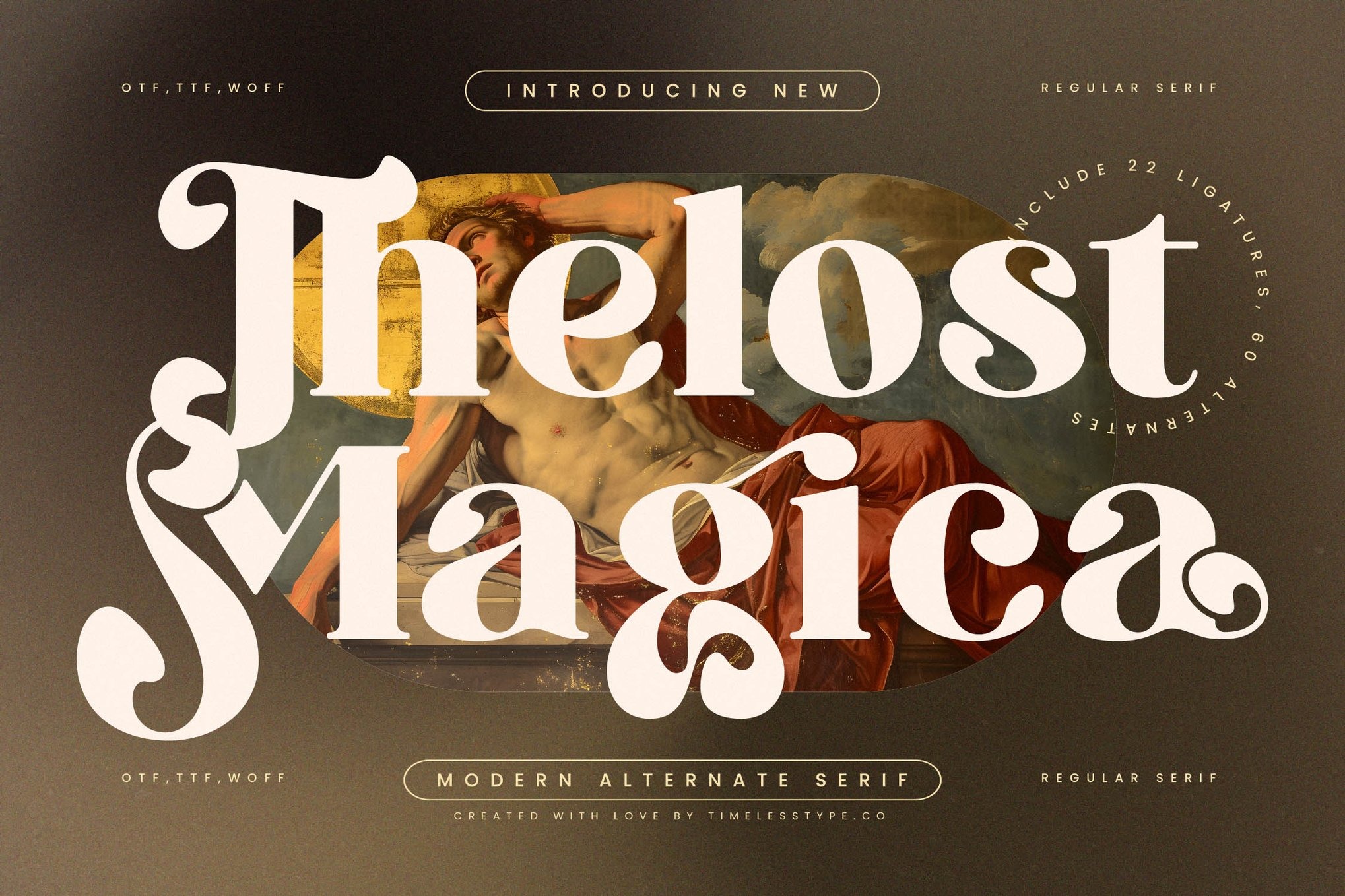
Thelost Magica Font
Thelost Magica Font is a versatile font designed to adapt beautifully across different design styles, offering dependable readability and balance. Thelost Magica Font is a modern alternate serif crafted with bold curves, expressive ligatures, and high-contrast strokes. Designed for premium editorial layouts, luxury branding, artistic posters, and statement typography, this font blends classical charm with a contemporary edge. Featuring 22 ligatures and 60 stylistic alternates, it gives every project a refined, dramatic, and unforgettable look. Perfect for designers seeking a serif with presence, sophistication, and strong visual personality.